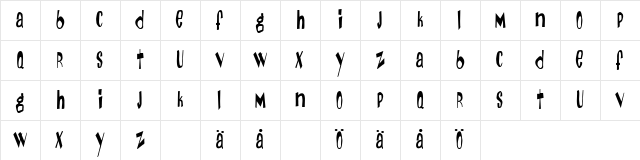
Day Of The Tentacle Regular
Design Context for Day Of The Tentacle
Day Of The Tentacle is a composed and adaptable typeface that performs quietly and consistently across a wide range of design contexts.